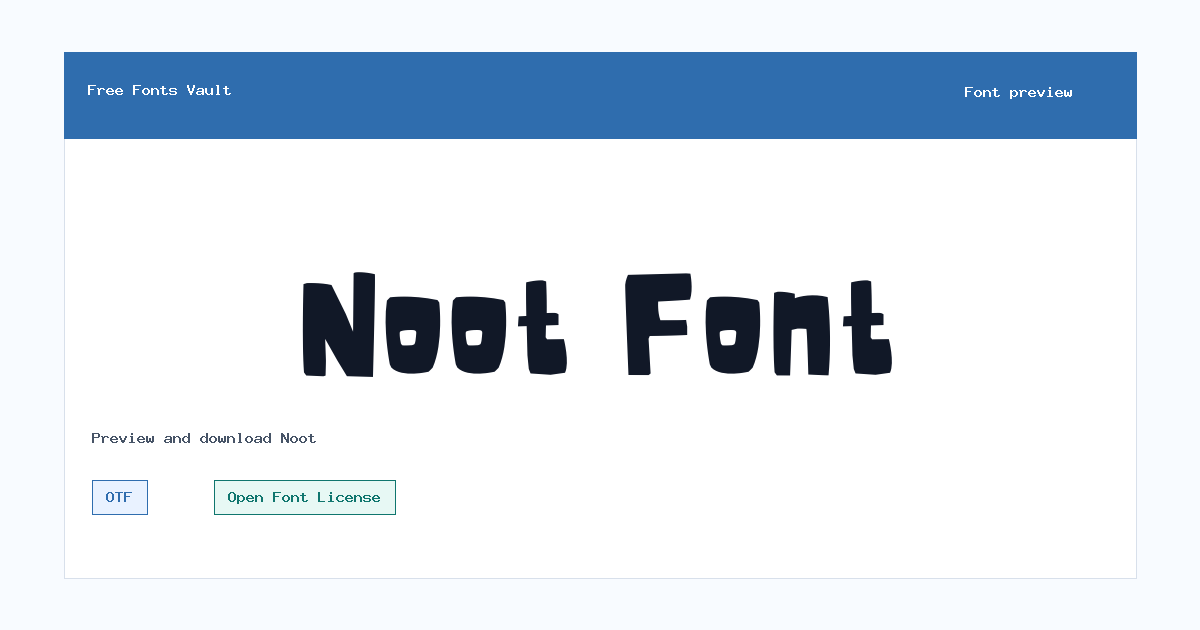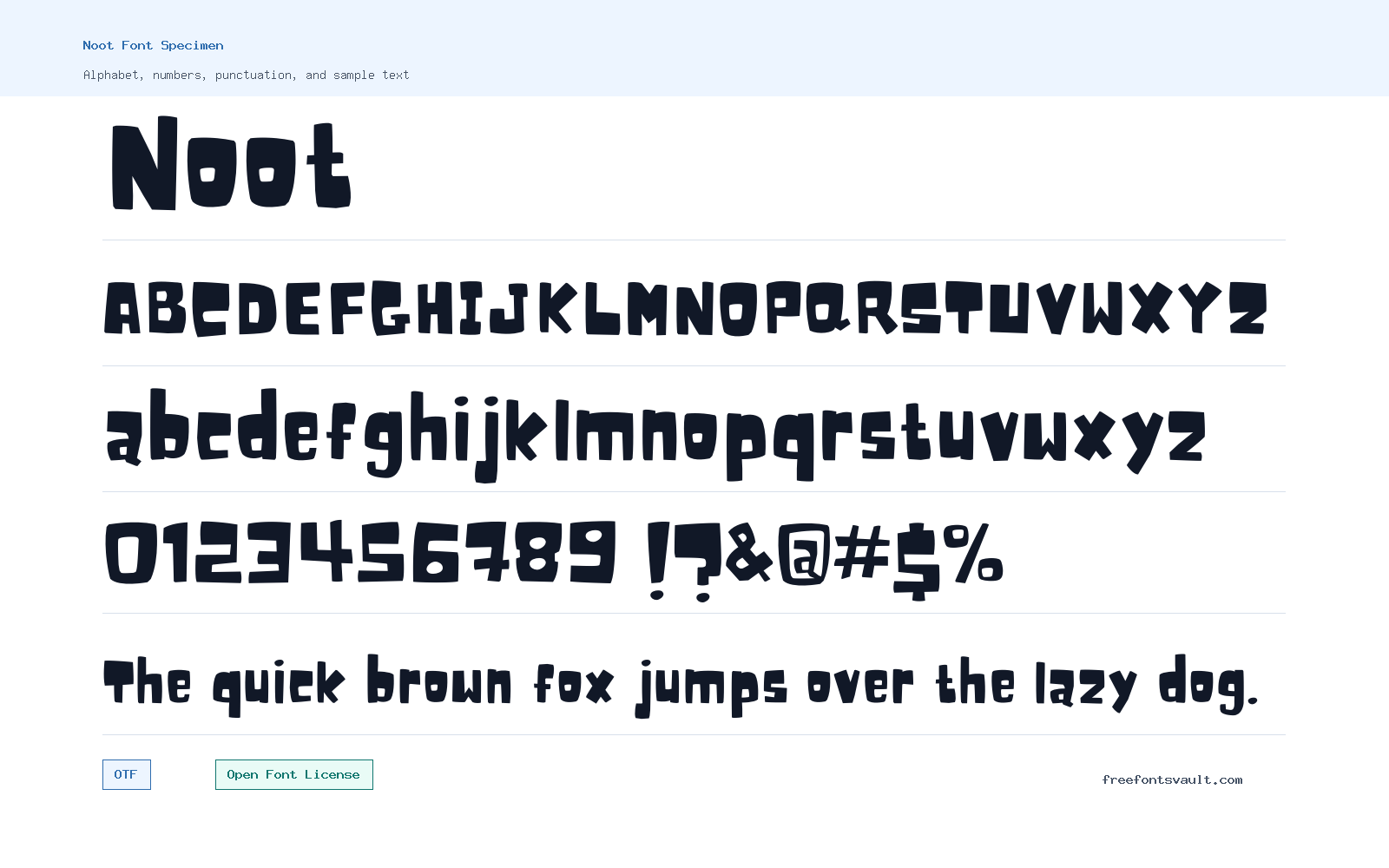
Noot
- Designer Amos Jerbi
- Foundry Amos Jerbi
Noot font.
Noot is a bold display font with a chunky, handmade look. Its uneven edges and compact letter shapes make it better for short, attention-grabbing text than for long reading.
About Noot Font
Noot Regular has heavy black forms, squared curves, and slightly irregular outlines. In the preview, the Latin letters feel playful and poster-like, with tight counters and a strong block shape. The font also contains Hebrew characters, giving it practical value for designs that need both scripts in the same visual style.
Use Noot when you want a headline, badge, sticker, children’s title, event graphic, or short label to feel bold and informal. Keep the text short, increase spacing if words feel crowded, and test punctuation and numbers in the preview before downloading. Because the design is thick and decorative, it is not a good choice for body paragraphs or small interface text.
Noot is best approached as a display face: look first at the rhythm of the letters, then decide whether it fits the mood of the project. The preview area is useful because unusual letter shapes can feel very different in a brand name than they do in an alphabet sample. Test the exact words you plan to use, including punctuation and numbers.
- Bold handmade display style with Latin and Hebrew character support
- Posters, thumbnails, badges, stickers, and playful display titles
- Short bilingual Latin/Hebrew headings that need a matching chunky style
Noot is credited to Amos Jerbi, with Amos Jerbi also listed as the foundry.
For best results, use Noot at larger sizes and in short lines. Try your exact words in the preview, check letter spacing, and avoid using it for long paragraphs where the heavy shapes can slow reading. Keep Noot for titles, short captions, and decorative moments. If the sample feels too busy, pair it with a quiet body font and give the headline more white space around it.
What kind of font is Noot?
Noot is a bold display font with chunky, irregular letterforms. It works best for short text that needs a playful, handmade feel.
Does Noot support Hebrew text?
The font file includes Hebrew characters along with Basic Latin characters, so it can be tested for bilingual Latin/Hebrew display text.
Is Noot good for body text?
No. Its thick display style is better for headlines and short labels. For paragraphs, pair it with a simpler text font.